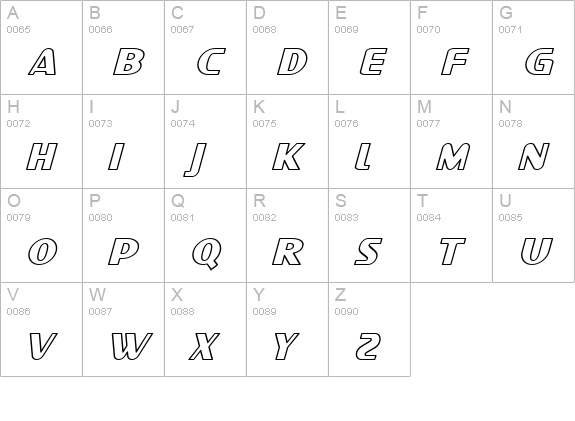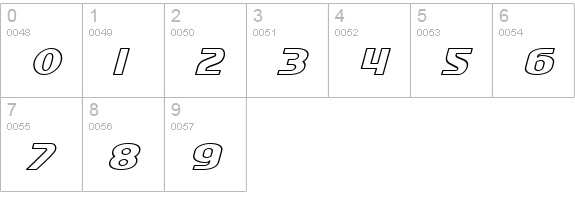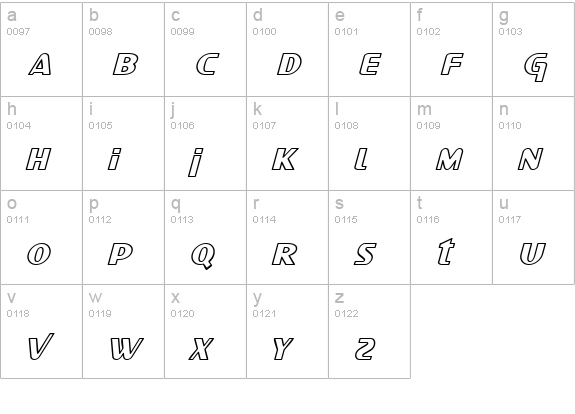
SF Intellivised Outline Italic Font Details
SF Intellivised Outline Italic is a distinctive, italic variant in the SF typeface family \xE2\x80\x94 well suited to design and typography projects.
SF Intellivised Outline Italic is a stunning font that combines the sleekness of a modern typeface with an edgy, artistic twist. Its italicized form adds a touch of elegance and sophistication, making it perfect for projects that require a touch of class. With its clean lines and unique design, SF Intellivised Outline Italic stands out among the crowd, capturing attention and leaving a lasting impression. Whether used in headings, logos, or any other design element, this font effortlessly adds a touch of professionalism and style to any project. What makes SF Intellivised Outline Italic even more appealing is the fact that it is freely available to download at FontsMarket.com. This means that you can easily access and use this striking font without any limitations. Whether you are a professional designer, a student, or simply someone looking to add a creative touch to your personal projects, SF Intellivised Outline Italic is the perfect choice. So why wait? Download SF Intellivised Outline Italic today and elevate your designs to new heights with its sleek and captivating aesthetic. Let your creativity soar and make a bold statement with this freely available font.